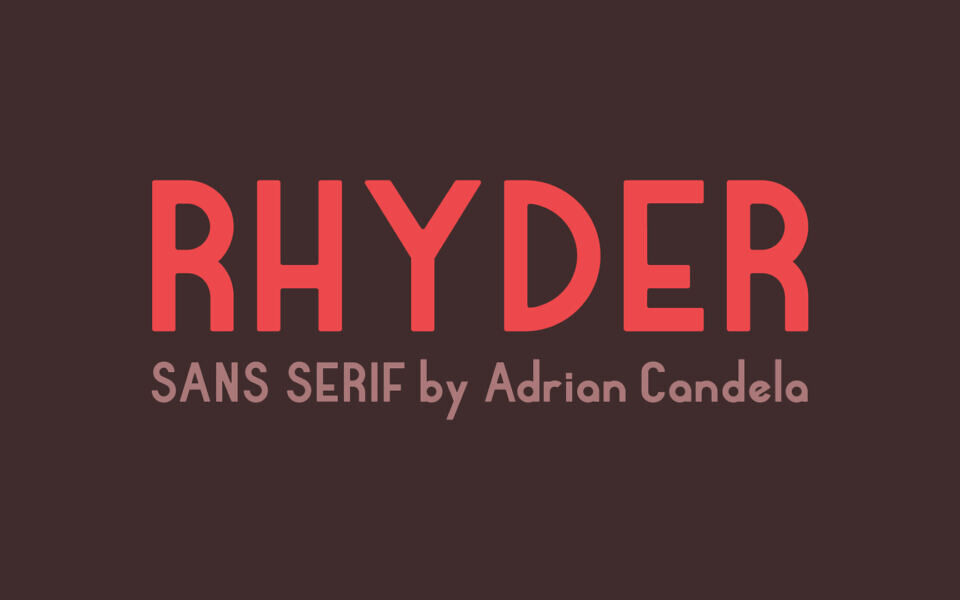
Rhyder Font
Rhyder is a clean sans serif, geometrical, heavy weighted font suitable both for text and display.
Its minimalist retro style and balanced letterforms make it ideal for modern branding, editorial layouts, and digital interfaces. With 184 glyphs, it offers versatility while maintaining clarity and elegance.
Designed by: Adrian Candela